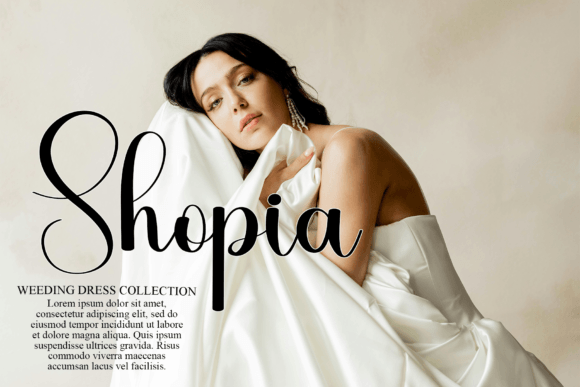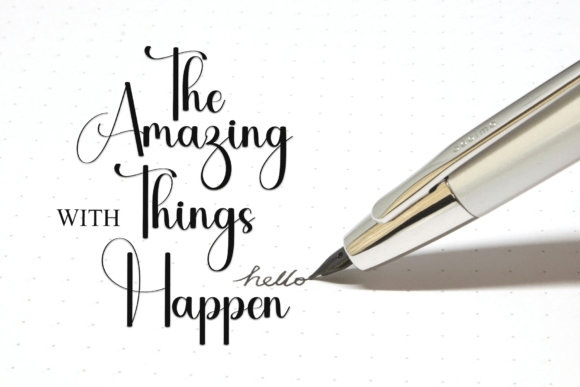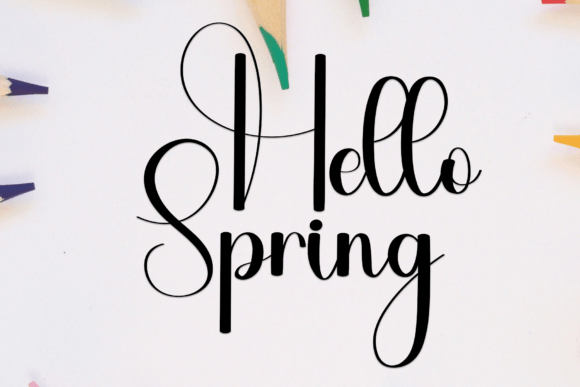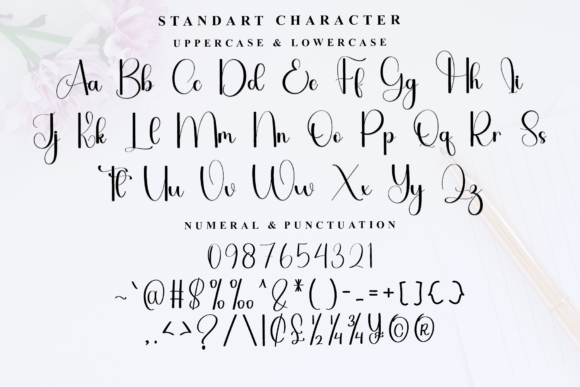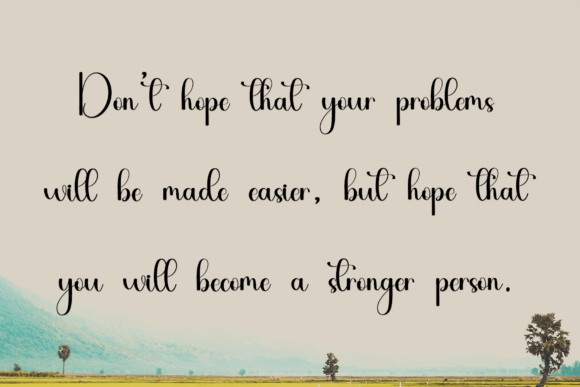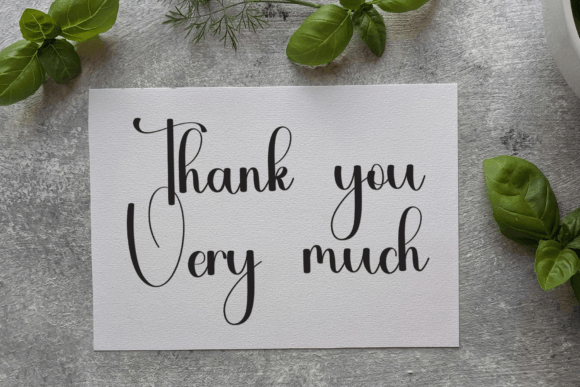
The Magic of the Season: Unleashing the Enchantment of Creative Signature Font
As the holiday season approaches, designers are on the lookout for the perfect font to capture the essence of the magic and wonder that fills the air. It’s that moment when the lights are twinkling, the tree is adorned with ornaments, and the fireplace crackles with warmth – the perfect time to let your creativity shine. And what better way to do that than with a font that embodies the very spirit of the holiday season?
Meet the Creative Signature Font, a festive and merry typeface that brings a touch of enchantment to your designs. With its decorative elements and whimsical flair, this font is perfect for greeting cards, gift tags, and holiday-themed projects. Whether you’re a seasoned designer or a crafty enthusiast, the Creative Signature Font is a valuable addition to your toolkit, allowing you to add a personal touch to your creations and make them truly special.
Creative Signature Font Key Features
- Font Type: Script font with a personal touch, ideal for signatures, logos, and watermarks.
- Character Count: 250+ glyphs, including Latin, Cyrillic, and Greek alphabets, ensuring versatility in multilingual designs.
- Unique Characteristics: Hand-drawn feel, subtle flourishes, and elegant lines create a distinctive and memorable signature style.
Design Review: Creative Signature Font
Overall, I’m impressed with the unique and creative style of the Creative Signature Font. Here are some of the things that stood out to me: ✨
- Expressive and artistic feel: This font truly captures the essence of a handwritten signature, making it perfect for personal and creative projects.
- Good for headings and titles: The font’s bold and playful style makes it ideal for headings and titles, adding a touch of personality to your designs.
- Customization options: The font includes various styles and variations, allowing you to customize it to fit your specific needs.
However, I did encounter some limitations with this font: ⚠️
- Not suitable for body text: While the font is great for headings and titles, it can be difficult to read in large blocks of body text due to its irregular letter spacing and varying line height.
- Limited legibility: Some letters may be difficult to distinguish, especially at smaller font sizes.
Overall, I would recommend the Creative Signature Font for projects that require a unique and creative touch, such as branding, marketing materials, or social media graphics. Just be mindful of its limitations when using it for body text or other areas where legibility is crucial.
To get the most out of the Creative Signature Font, experiment with different font sizes, colors, and styles.
Use the font to create a cohesive brand identity across all your designs.
Combine the font with other creative elements, such as illustrations or graphics, to add visual interest.
The Creative Signature Font is ideal for use in personal branding, business cards, and marketing materials.
It can also be used for social media graphics, email newsletters, and website design.